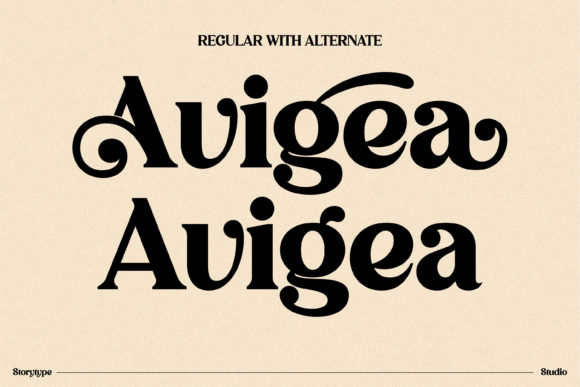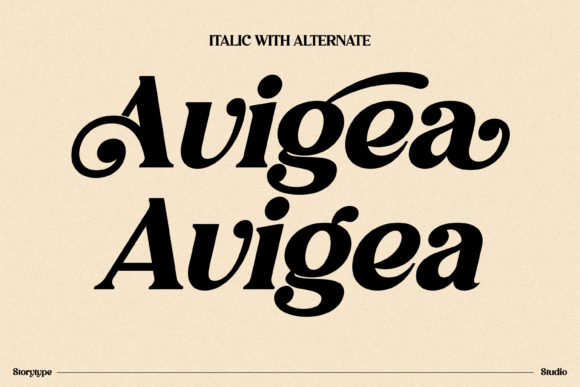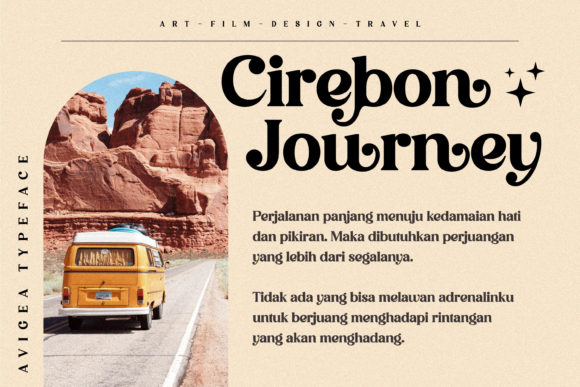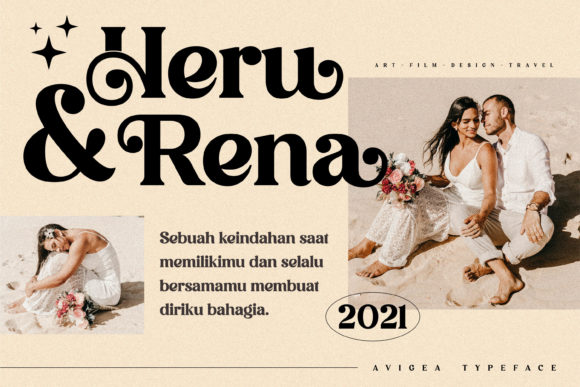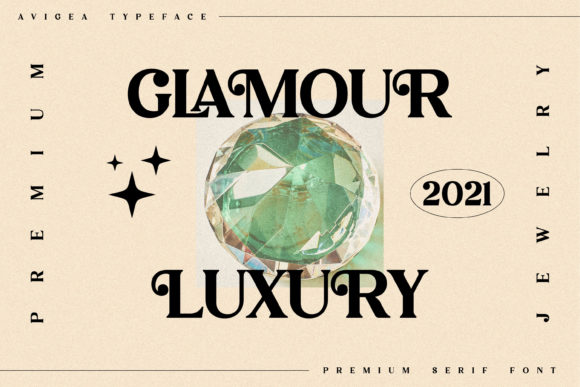
The Perfect Font for Luxury Designs
Have you ever stared at a blank page, waiting for the perfect font to spark your creativity? For designers, finding the right font can be a daunting task. But what if I told you there’s a font that can elevate your designs to the next level? Enter the Avigea Font, a sophisticated and elegant serif font designed to add a touch of luxury to any project.
With its unique style and PUA encoding, the Avigea Font makes it easy to access all the amazing glyphs and ligatures you need to create stunning designs. Whether you’re working on a high-end branding project or a luxury publication, the Avigea Font is sure to impress. Its versatility and sophistication make it a valuable asset for designers looking to add a touch of class to their work.
Avigea Font Key Features
- Unique Characteristics: Avigea Font features a unique blend of modern and vintage elements, with a distinctive italic style and a range of ligatures, making it an attractive choice for creative projects.
- Font Weight: Avigea Font comes in a range of font weights, including Light, Regular, Medium, Bold, and Extra Bold, allowing users to choose the perfect weight for their design needs.
Avigea Font Review
I’ve had the chance to work with Avigea Font, and I must say it’s a decent addition to any designer’s toolkit. ✨ One thing that stands out is its elegant, modern aesthetic. The font is perfect for creating a sophisticated and sleek look in various projects, from branding materials to digital interfaces.
- ✨ Versatile and adaptable: Avigea Font is suitable for a wide range of applications, from body text to headings.
- ✨ Great for digital projects: Its modern design makes it an excellent choice for creating engaging digital experiences.
- ✨ Easy to read: The font’s clean lines and well-balanced proportions ensure readability across different screen sizes and resolutions.
However, there are some limitations to consider. ⚠️ Avigea Font may not be the best choice for projects that require a more playful or whimsical feel. The font’s elegance can sometimes come across as too formal or serious. Additionally, the font family is relatively small, which may limit its versatility in certain situations.
Overall, Avigea Font is a solid choice for designers who want to add a touch of sophistication to their projects. While it may not be the best fit for every project, it’s definitely worth considering for those looking to create a modern, elegant aesthetic.
Tips for Getting the Most Out of Avigea Font
Use Avigea Font for headings and titles to add a touch of elegance and sophistication to your designs.
Pair Avigea Font with a clean and minimalist background to let the font take center stage.